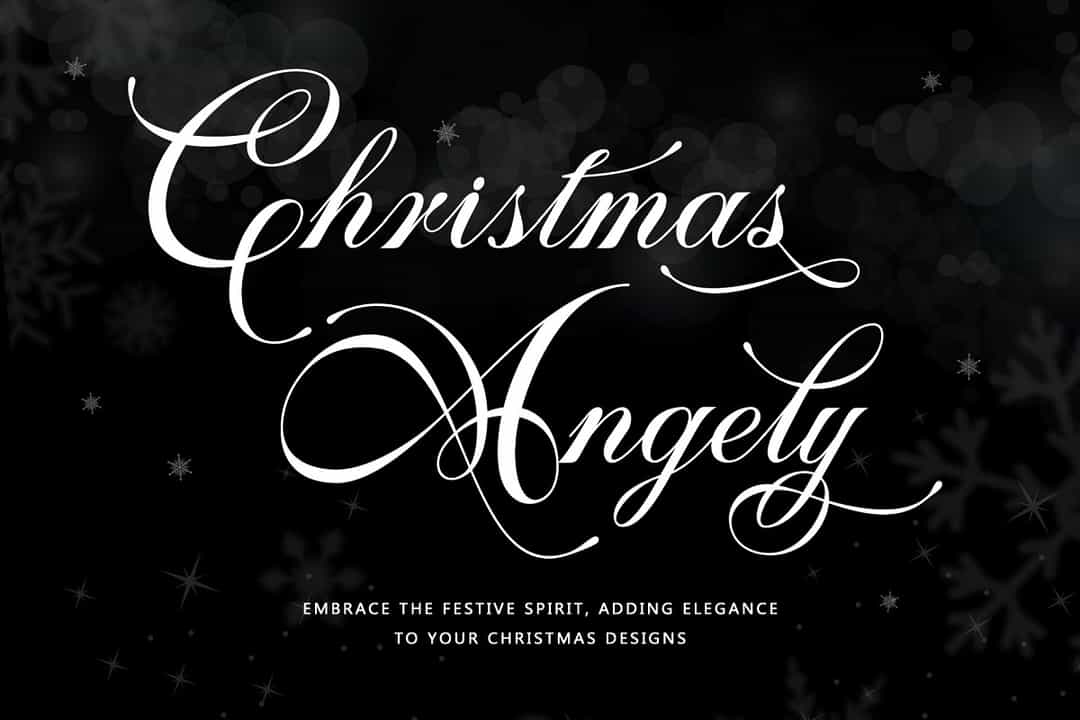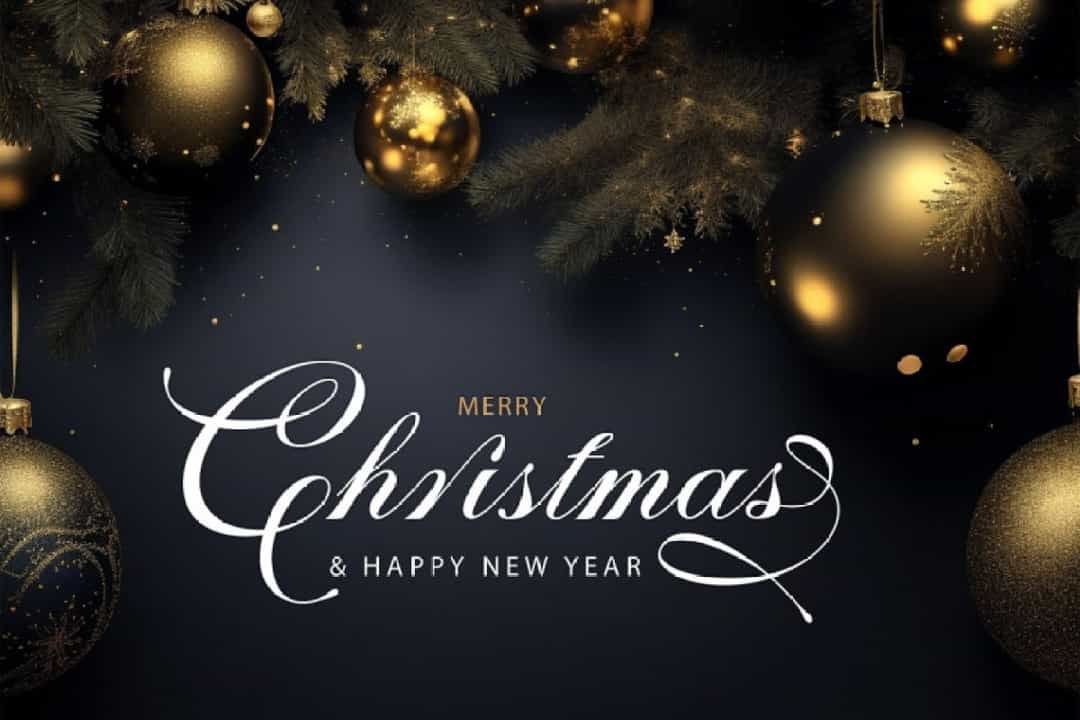
Welcome the Christmas Angely formal calligraphy font into your artwork to bring an added dimension of glamour and celebration of Christmas celebration. Use PUA encoder and discover its infinite capabilities that instantly elevate designs!